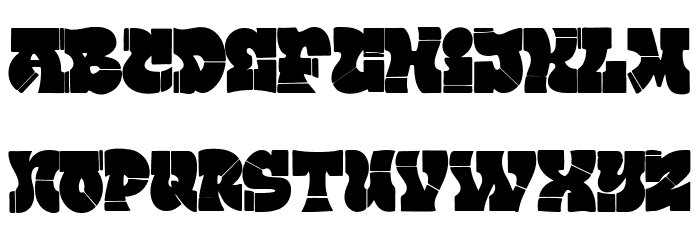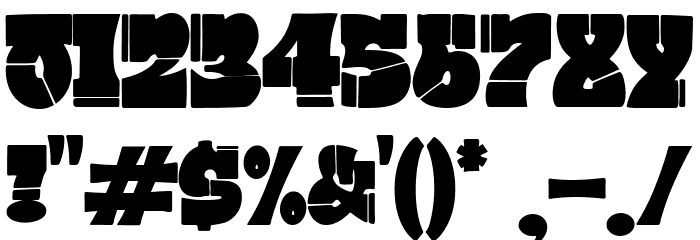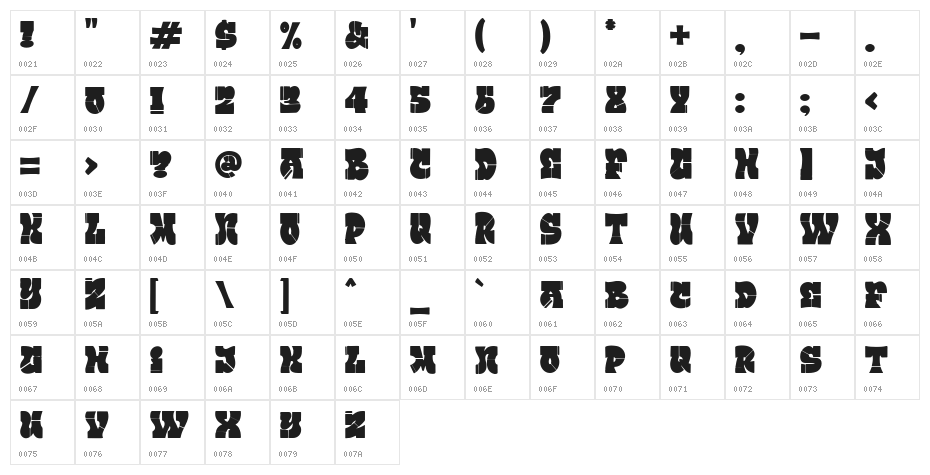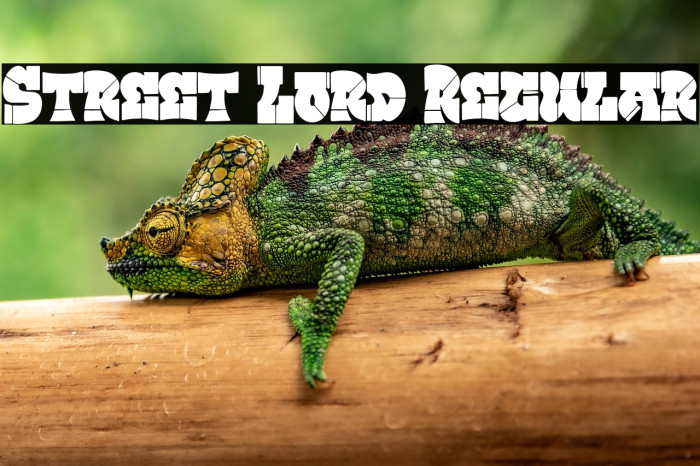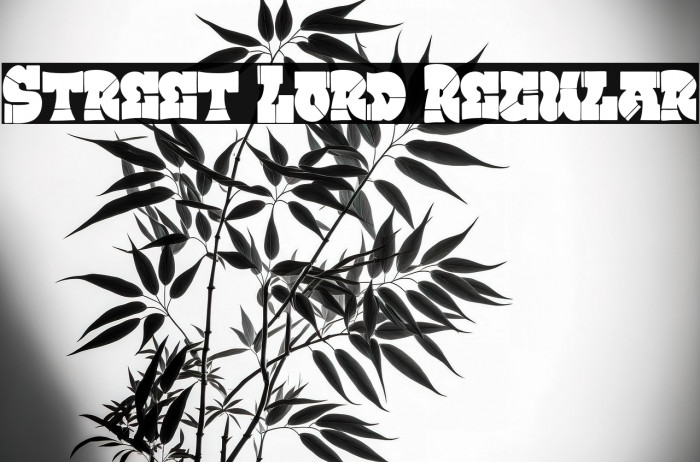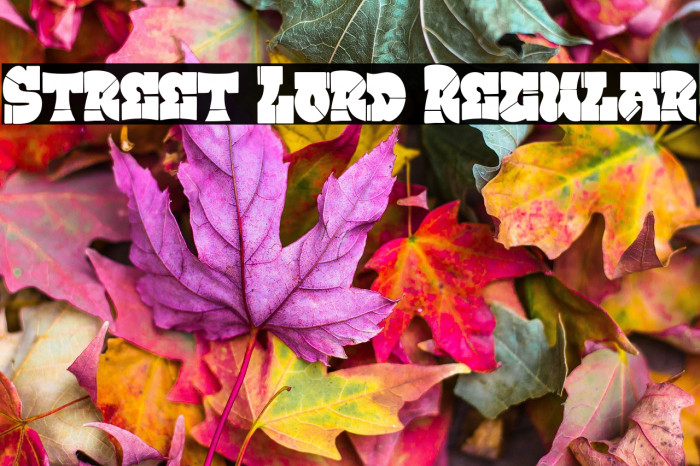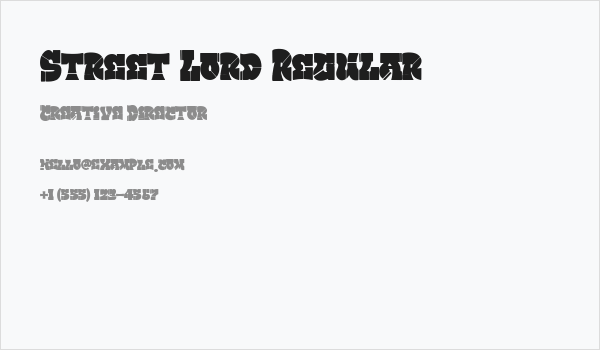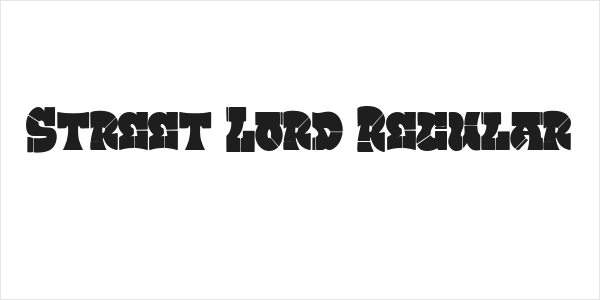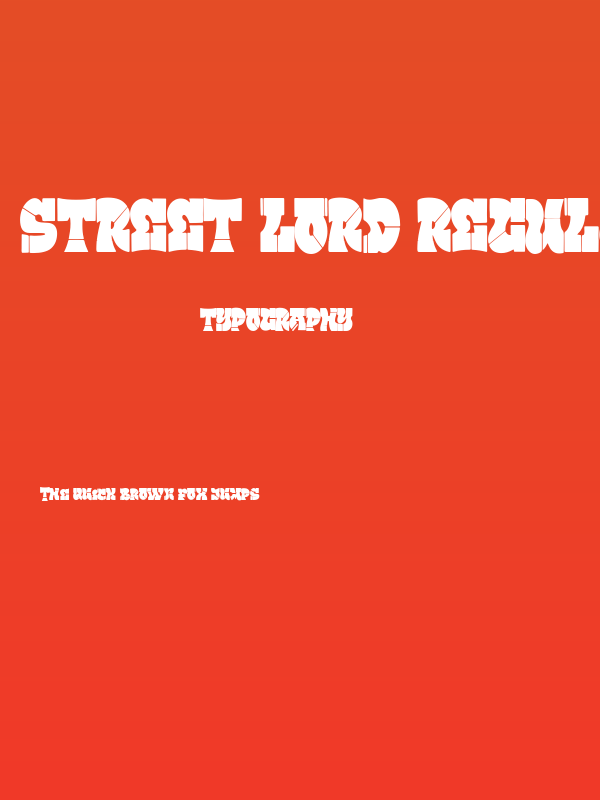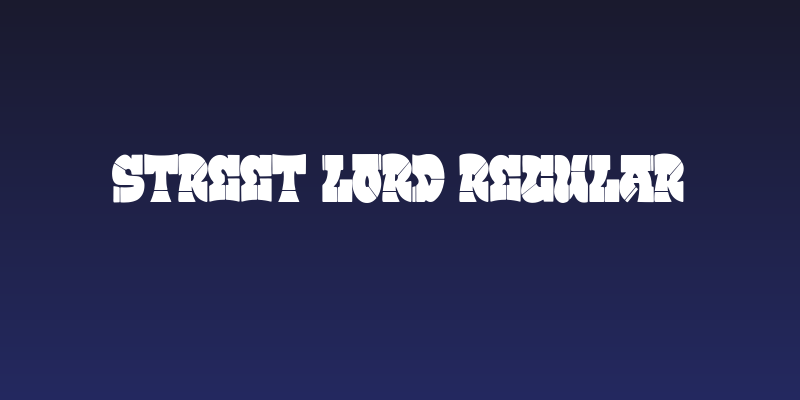
Street Lord Regular Font
This font features a bold and striking design with a distinctly urban and edgy aesthetic. The characters are heavily stylized with sharp angles and thick strokes, creating a sense of movement and energy. The uppercase and lowercase letters maintain a consistent weight, contributing to a cohesive look across the alphabet. The numbers and special characters follow the same bold style, ensuring uniformity throughout. This font's unique design makes it stand out, ideal for projects that require a strong visual impact.
A bold, urban-style font with sharp angles and thick strokes.
- Font: Street Lord Regular
- Proposed Projects: Perfect for street art designs, music album covers, urban-themed posters, and branding for edgy or modern businesses.